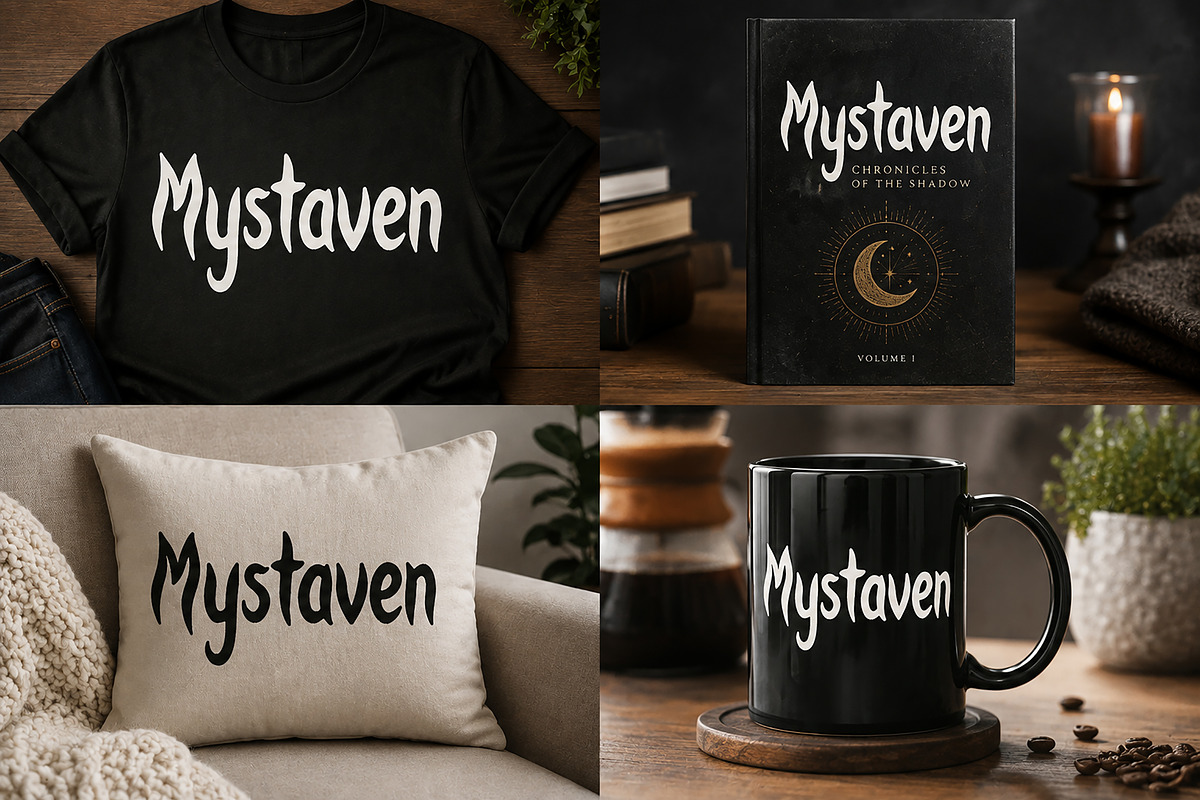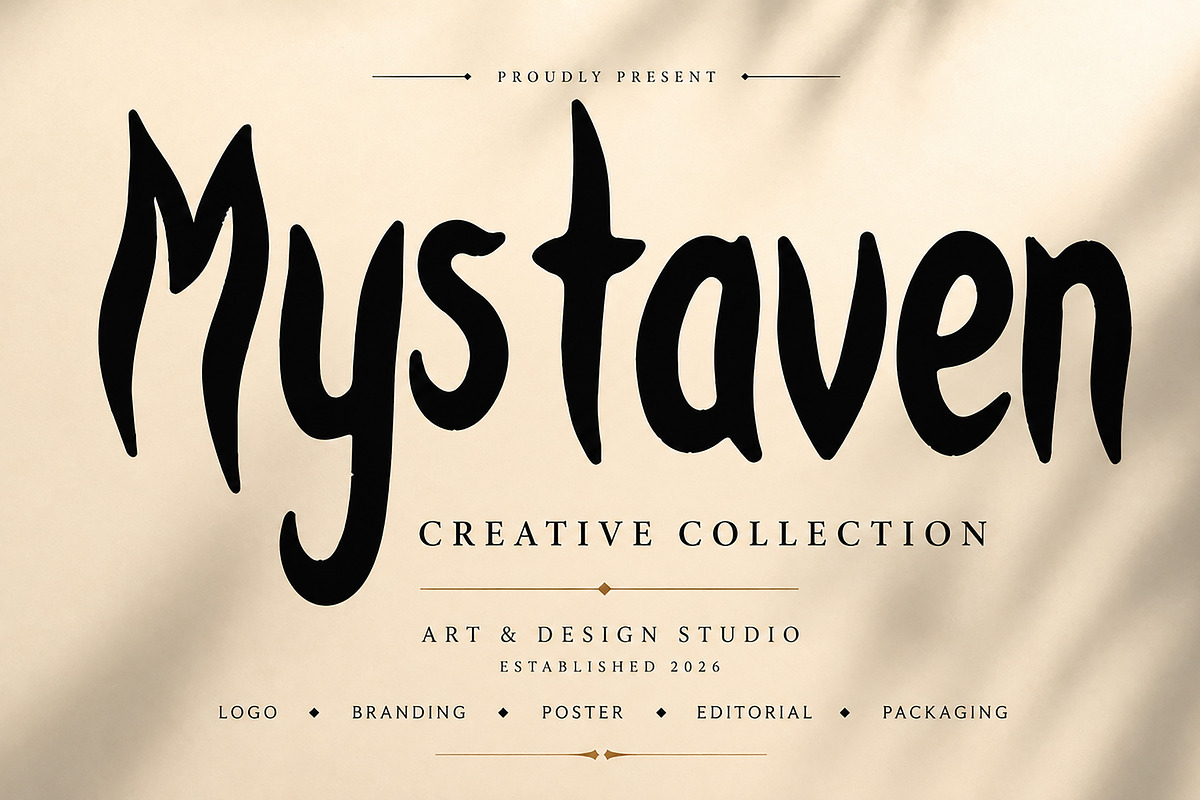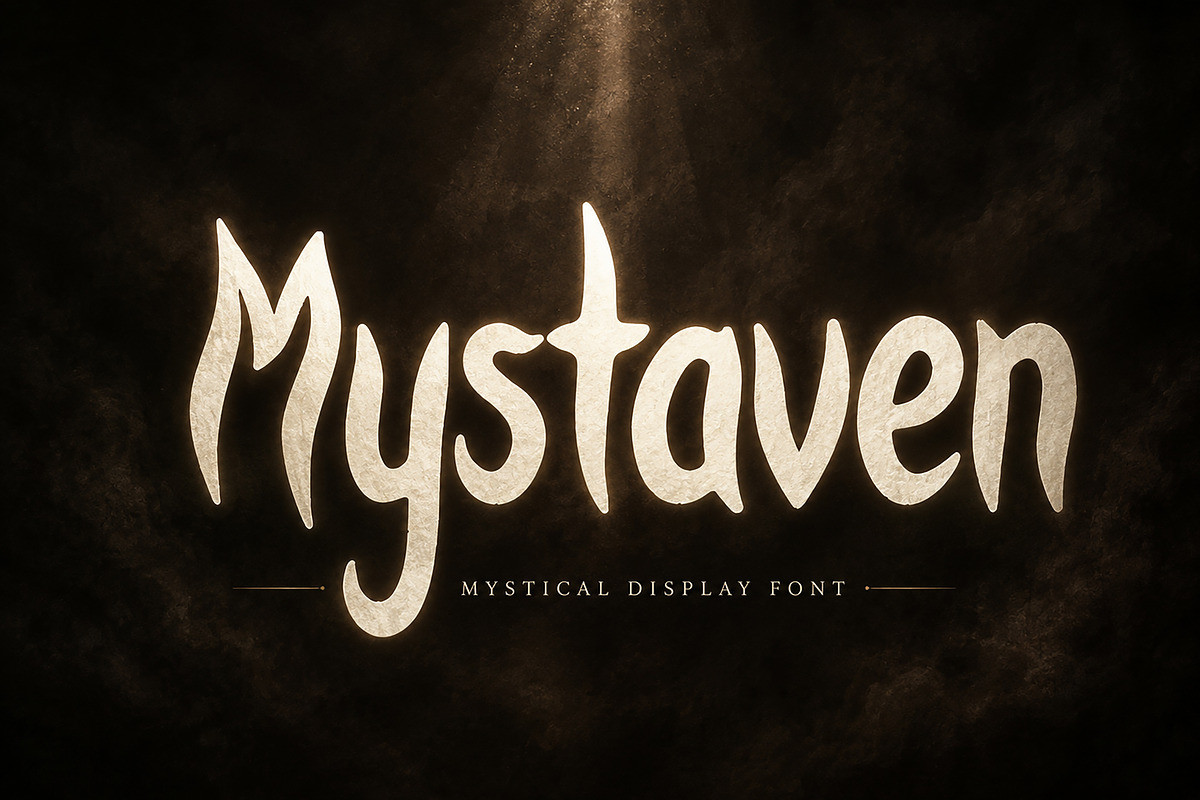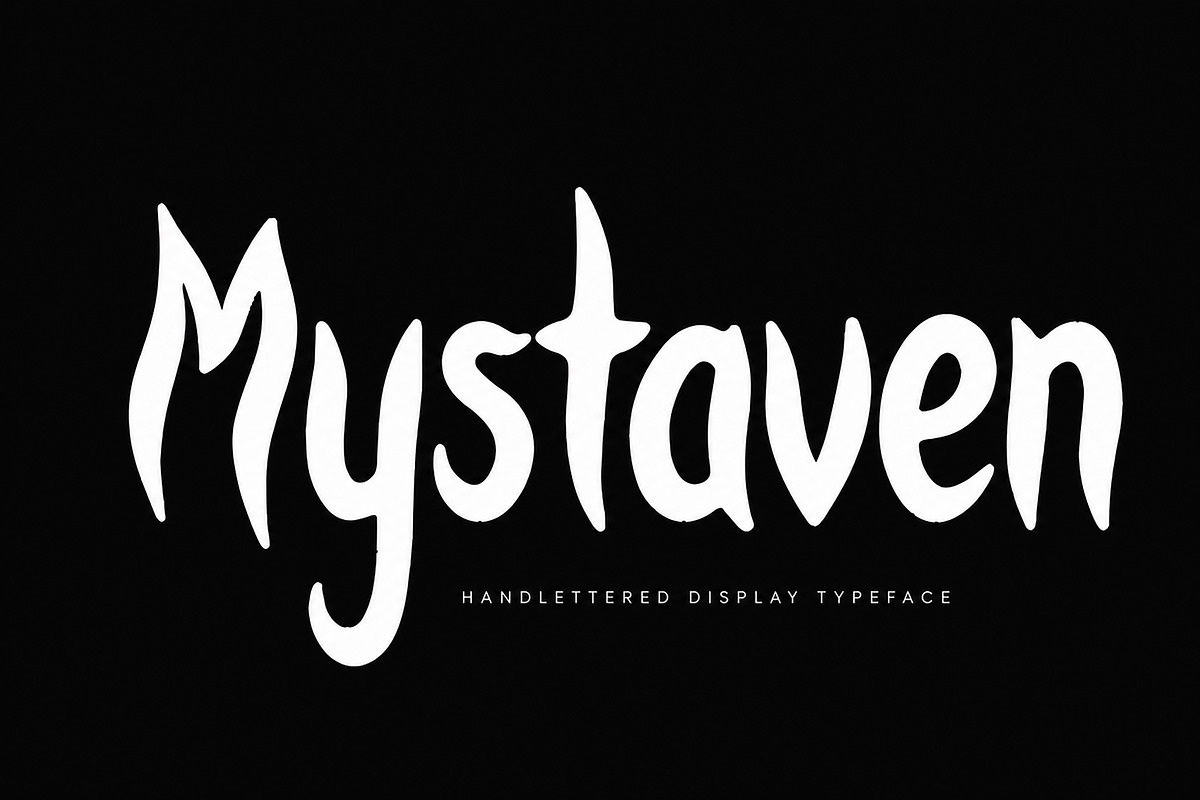
Mystaven
Mystaven is a bold and expressive handlettered display font designed to bring a mysterious, artistic, and distinctive personality to your creative projects. With its fluid strokes, playful curves, dramatic proportions, and unique letterforms, Mystaven is perfect for designs that need a strong visual impact.
Its stylish and slightly mystical character makes it an excellent choice for branding, logos, posters, editorial designs, packaging, invitations, apparel, merchandise, social media graphics, album artwork, and more.
Whether you're creating a striking brand identity or an eye-catching headline, Mystaven adds a memorable handcrafted touch to your typography.
✦ Perfect For
Logo & Branding Design
Posters & Headlines
Editorial & Magazine Design
Packaging & Product Labels
Fashion & Creative Branding
Apparel & T-Shirt Designs
Invitations & Stationery
Album & Book Covers
Merchandise & Promotional Designs
Quotes & Typography Artwork
✦ Font Features
Bold handlettered display style
Unique and expressive letterforms
Organic, flowing strokes
Distinctive mystical character
Perfect for large display typography